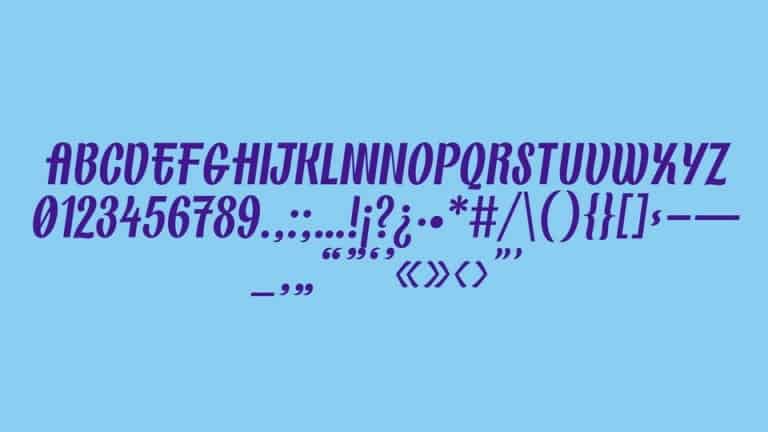
Finesse Sans Serif Font
Finesse Sans Serif Font is a sans serif typeface, its soft curves and refined details create a sense of elegance. This font is a typeface based on the slanted lettering on a watch fixer’s cart, by the renowned handlettering and signpainting artist Hoài Minh Phương, Finesse sports a poetic treatment that mimics the original artist’s style and character. A tribute to the craft-driven nature of Vietnamese typographic style, this typeface attempts to maintain as much personality as possible while adapting to the more adamant and less forgiving medium of digital font.
Finesse can be categorized as a script typeface, with the style similar to casual script lettering using a flat brush. It features a contrast between the thin & thick strokes, informed by the brush lettering technique.